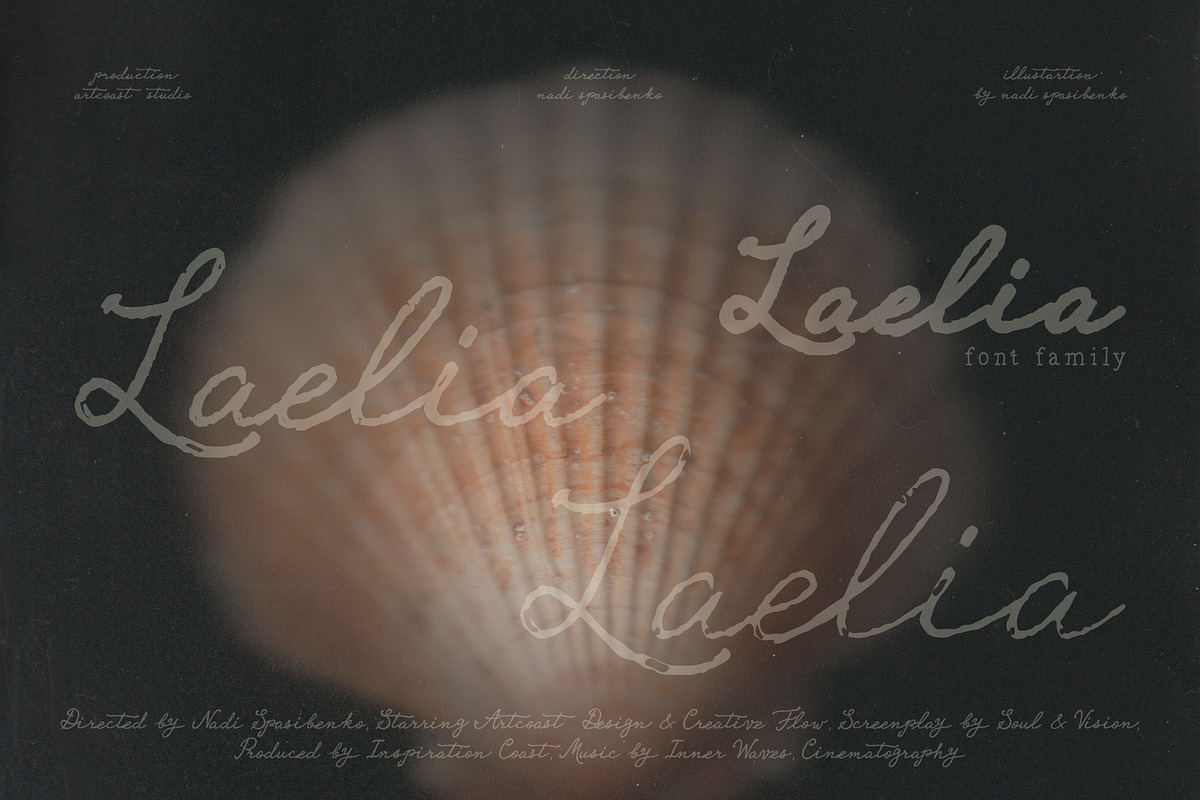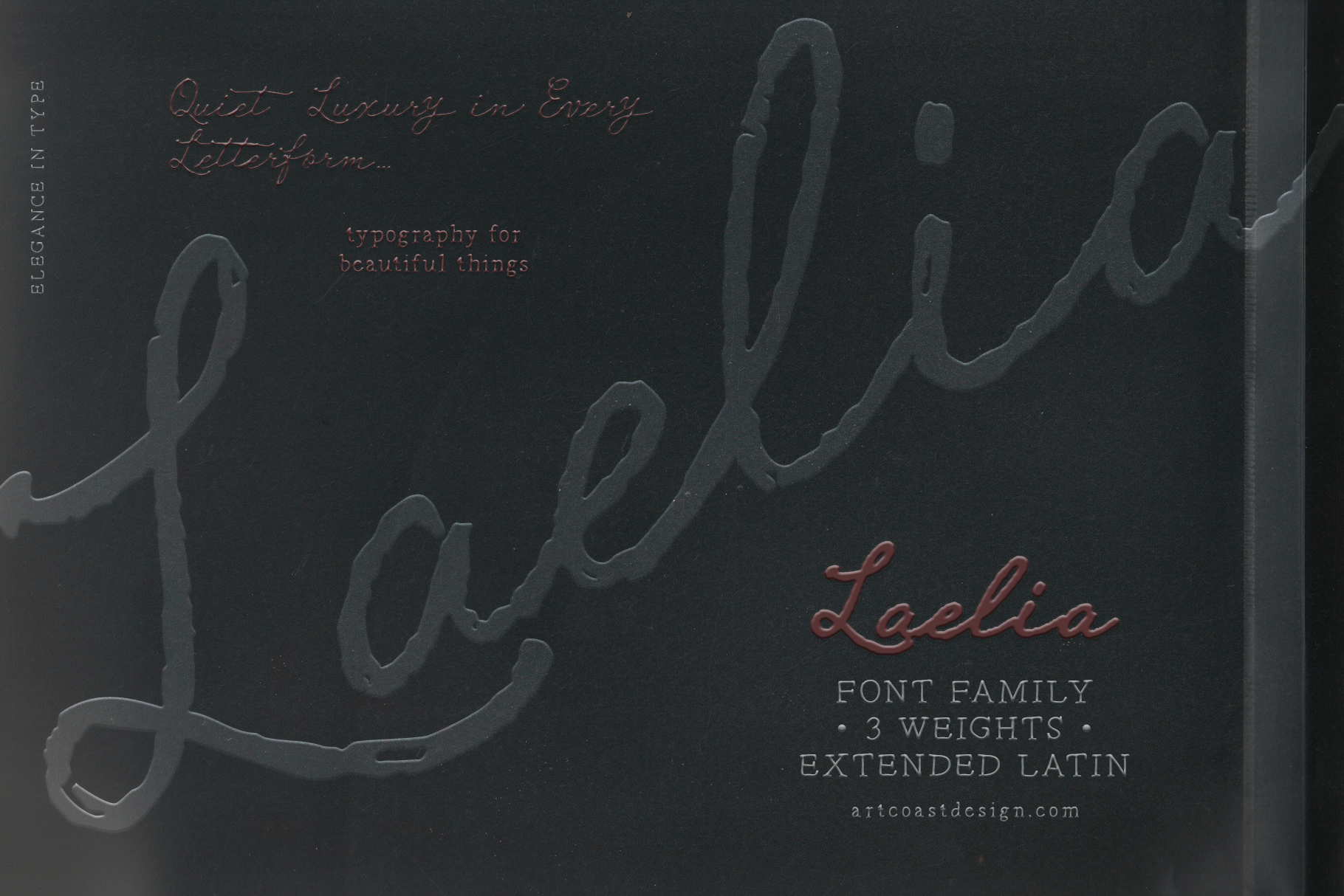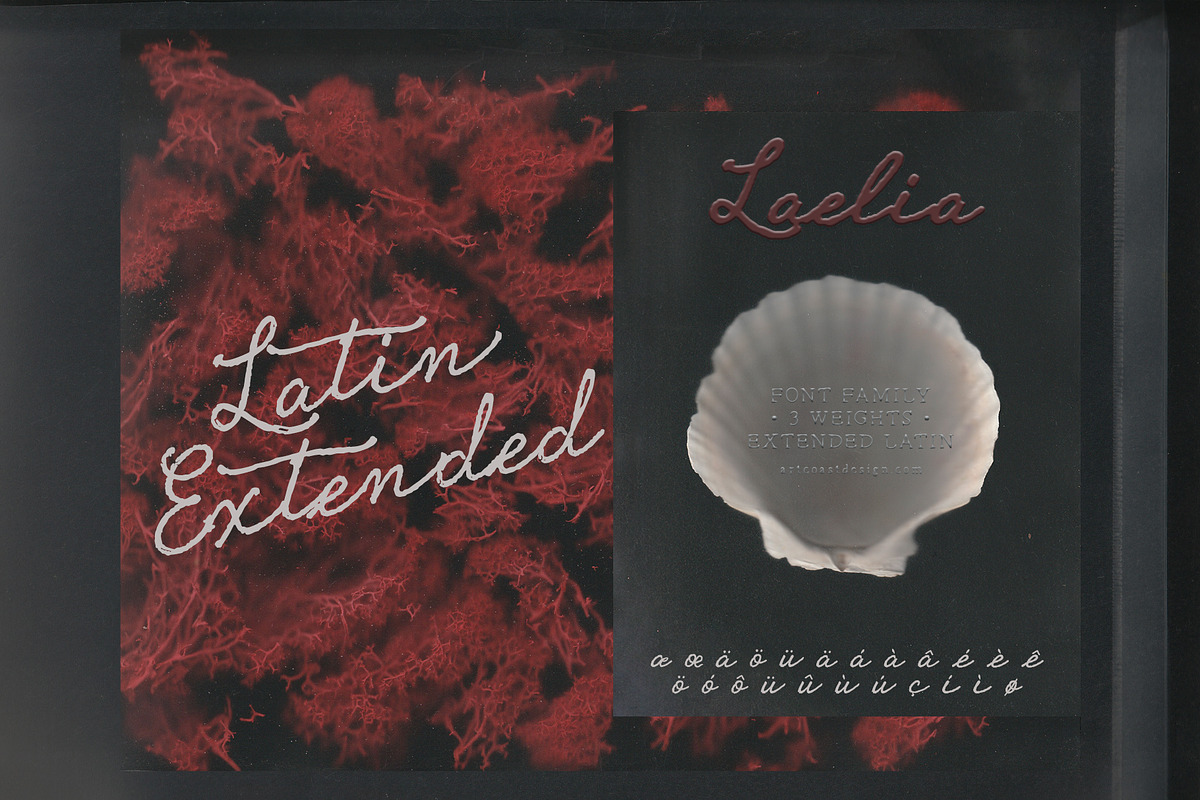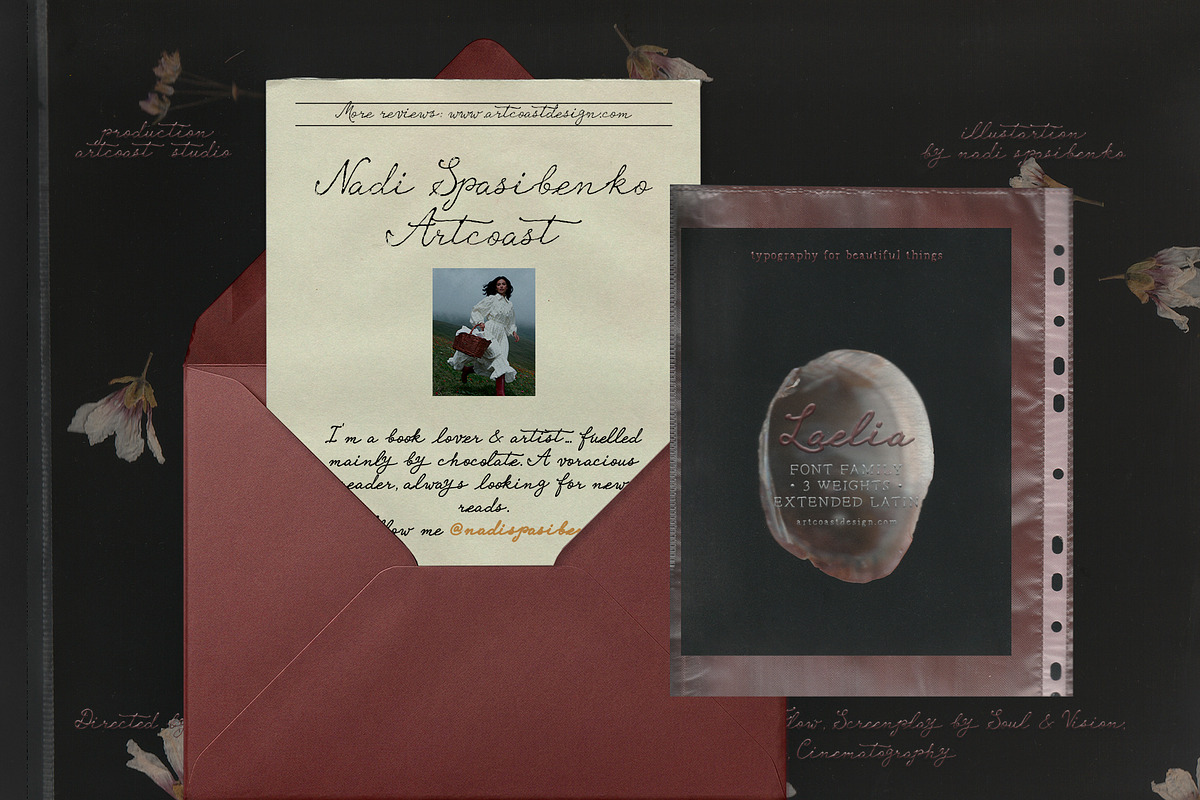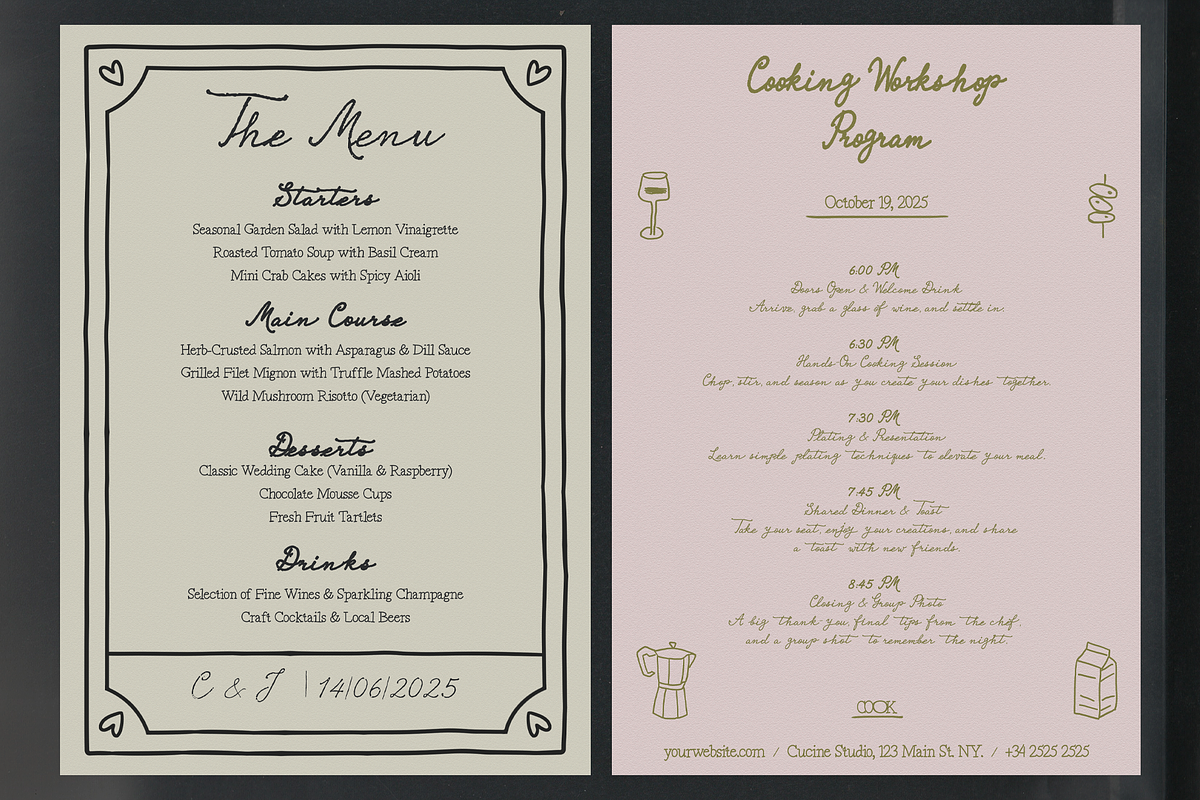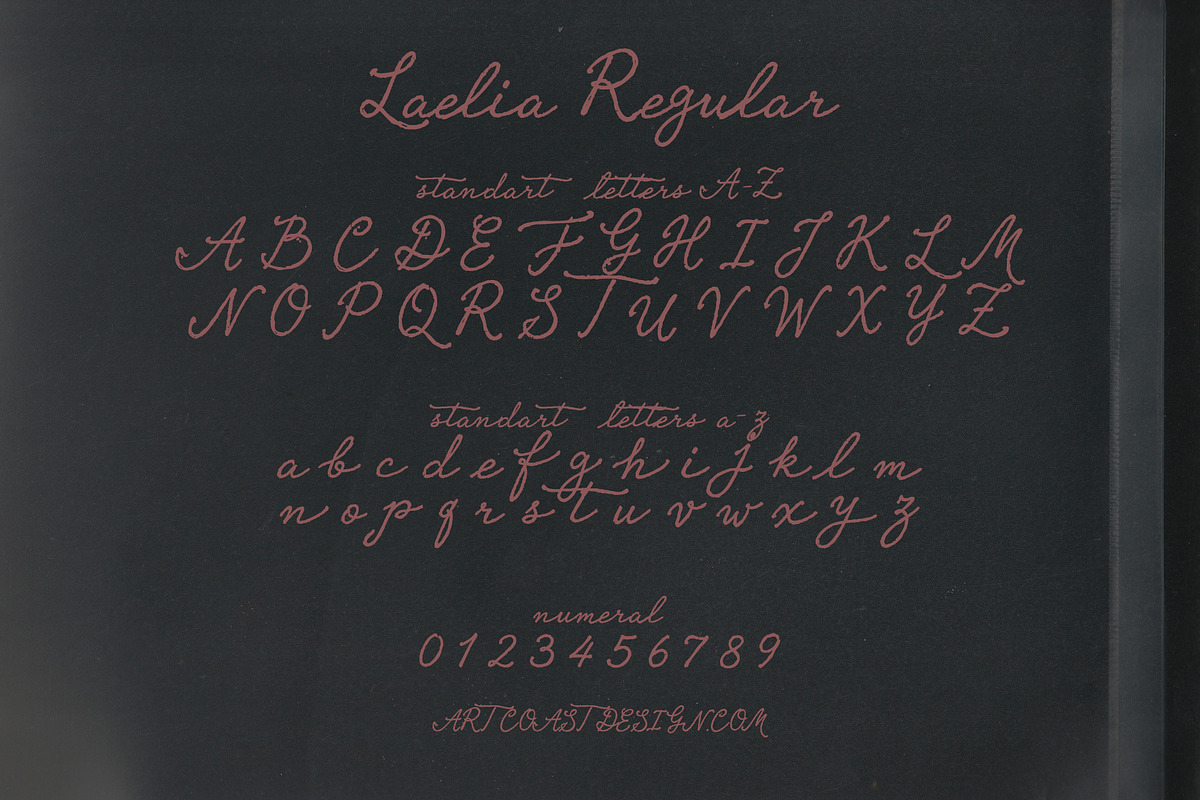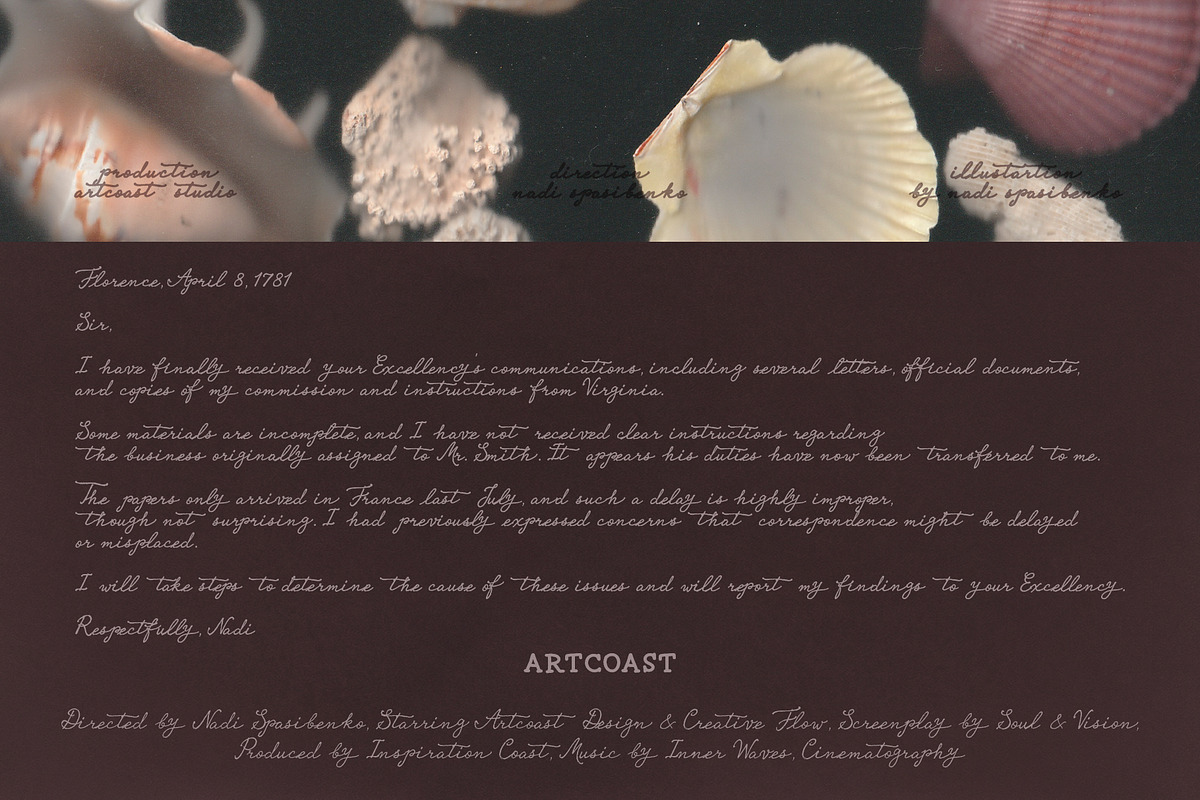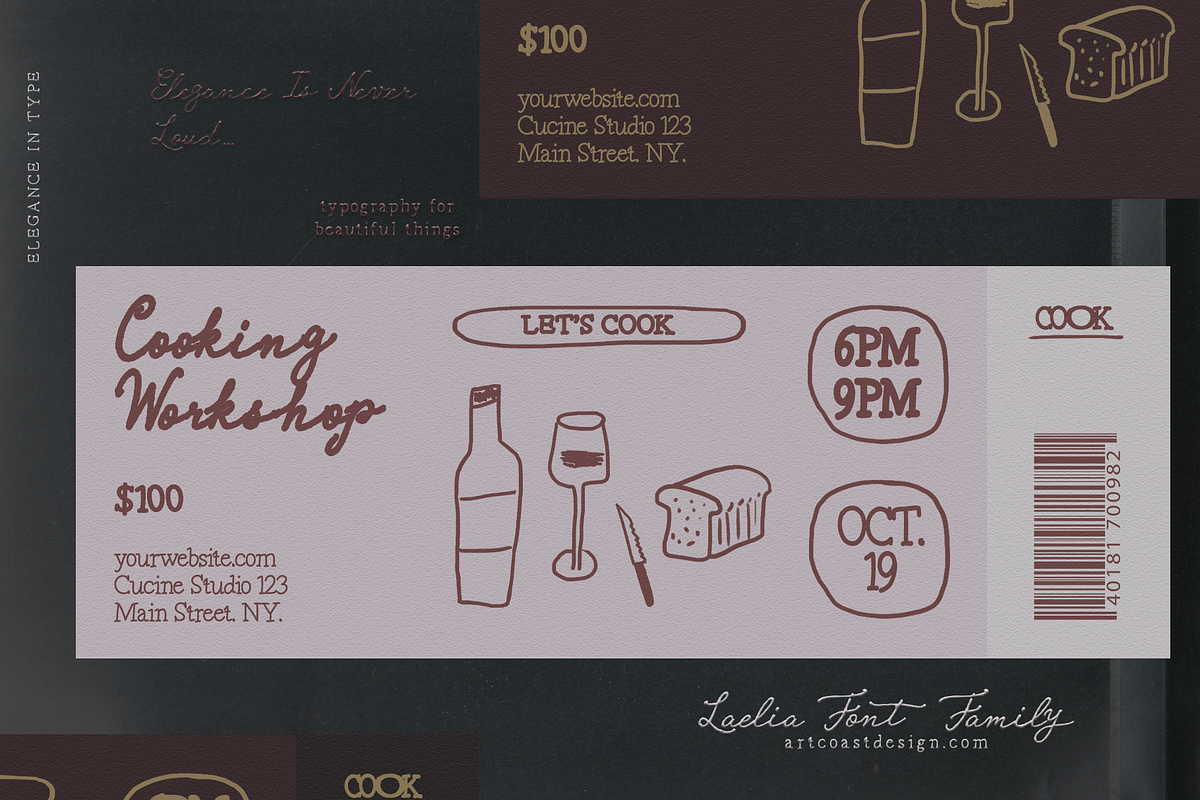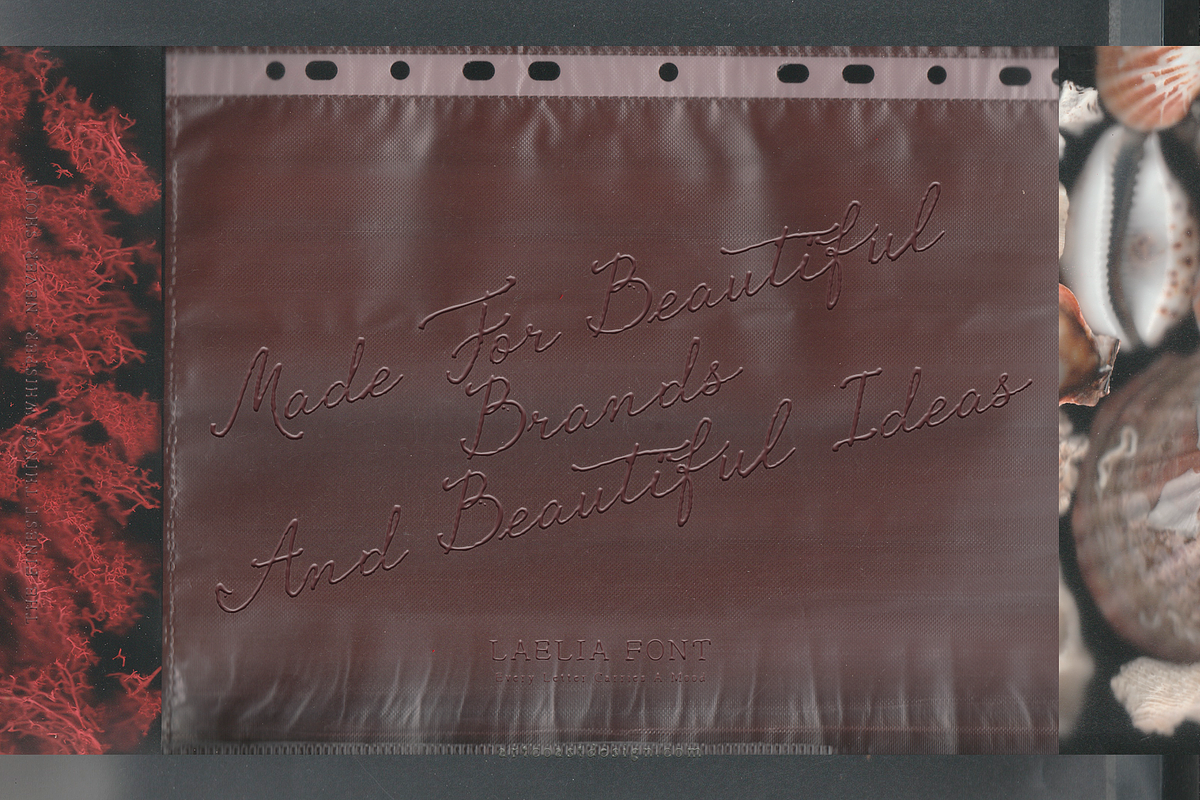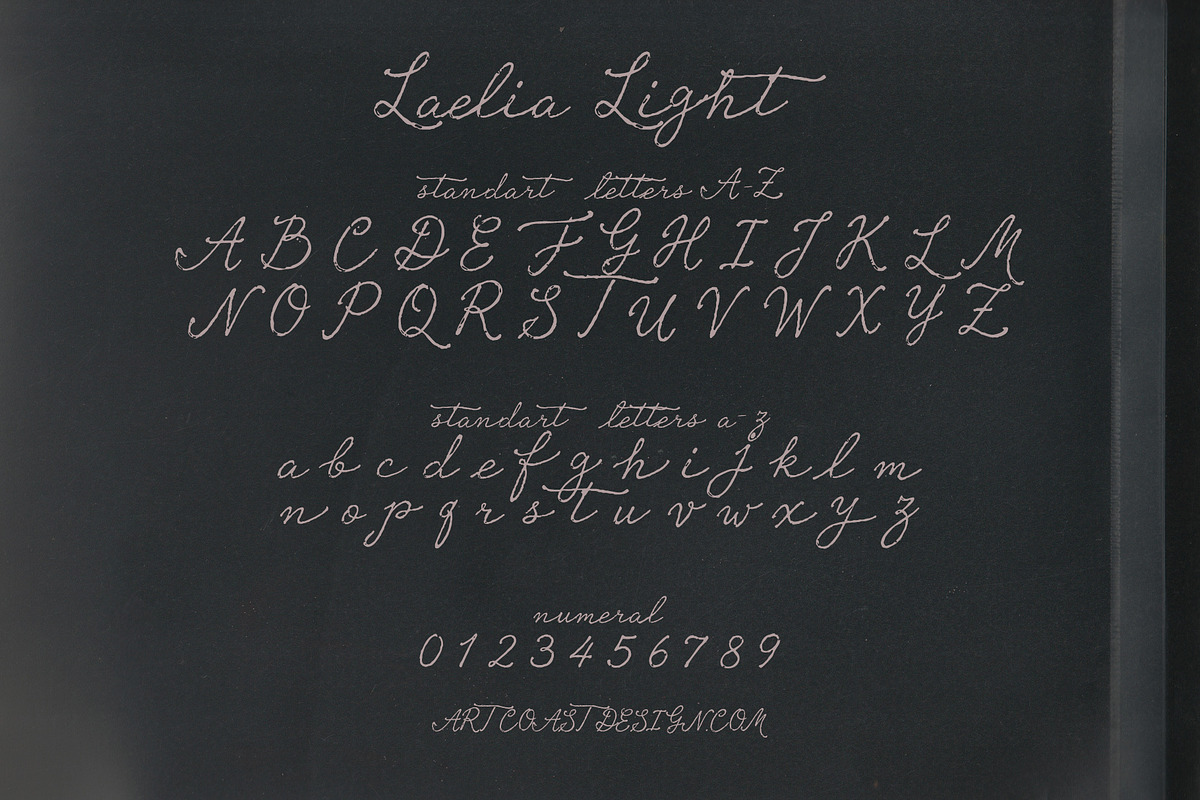
Laelia Font Family | Elegant Script
Introducing Laelia — a typeface that embodies the essence of quiet luxury.
Laelia is an elegantly textured script family designed for projects that demand a sophisticated, high-end, and editorial touch. With its subtle imperfections and organic flow, it brings a tactile, almost cinematic quality to your typography. Whether you are designing a Vogue-style magazine spread, minimalist cosmetic packaging, or luxury brand identity, Laelia delivers an effortlessly chic aesthetic.
3 Distinct Weights: Carefully crafted to give you ultimate control over visual hierarchy and contrast.
Extended Latin Support: Ready for global, multilingual projects.
Textured Finish: A natural, slightly rough edge that beautifully mimics premium letterpress and organic ink.
Perfect for: High-end branding, editorial layouts, wedding stationery, luxury packaging, social media aesthetics, and cinematic title design.
Bring a touch of elegance to your beautiful things with Laelia.